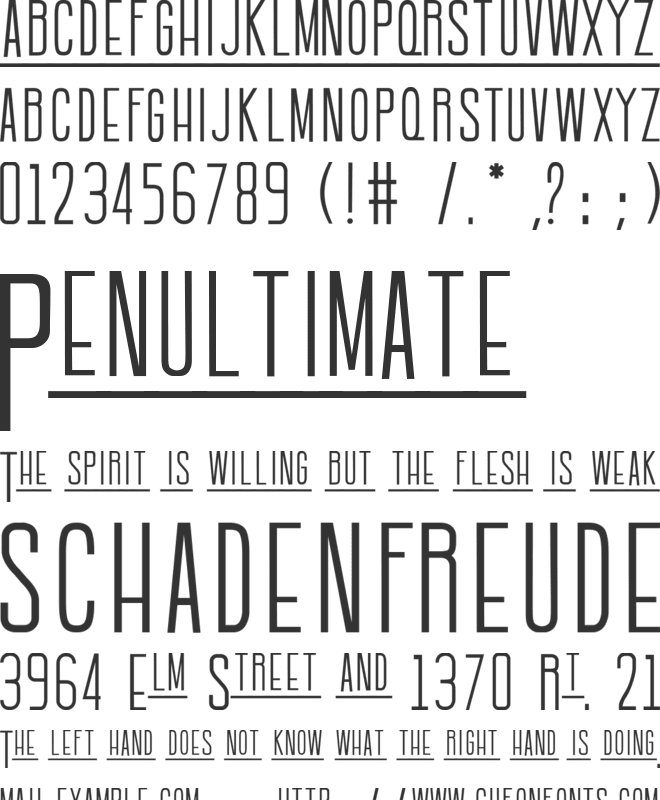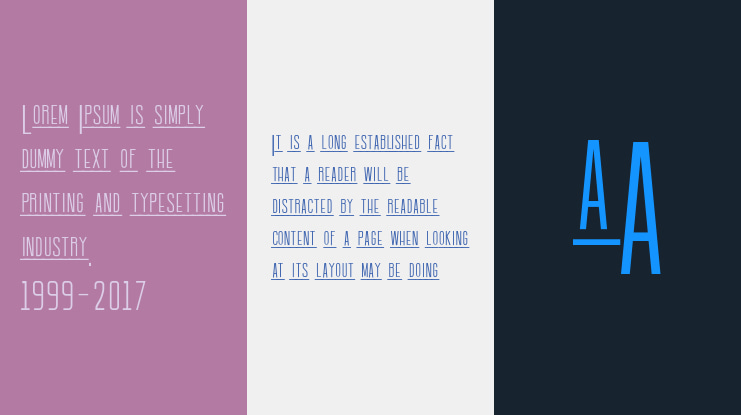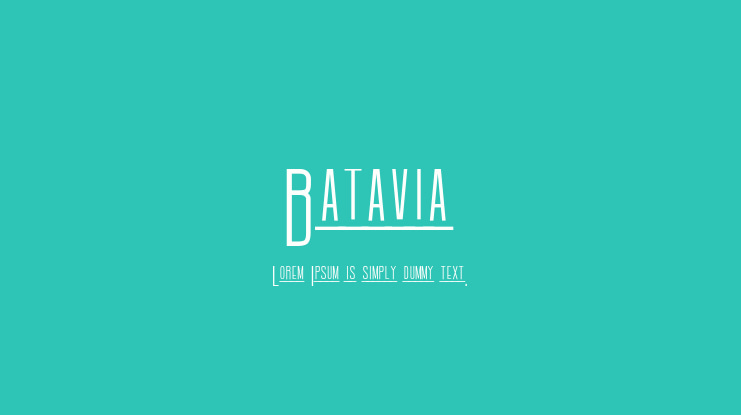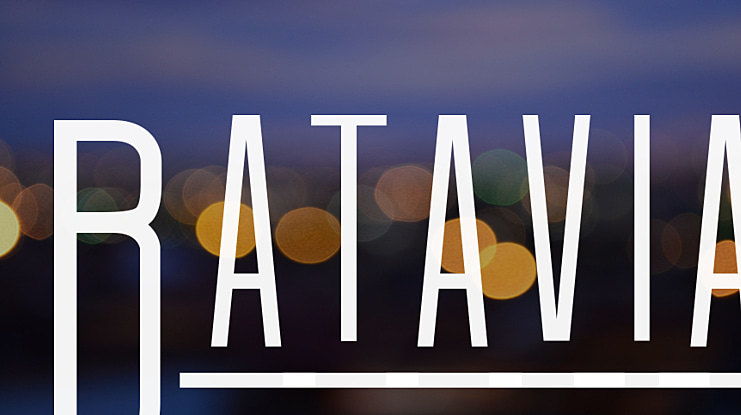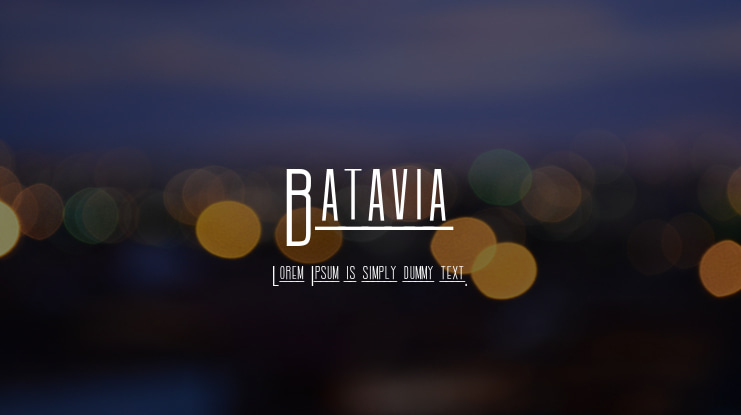
Batavia Font
This font is inspired from Central Ave typeface. I want to make it looks like more art deco style and similar with colonialism era in Indonesia around 1900-1950. I hope you like it, you can use it free for personal use and it would be nice if you want to share it with me your artwork. Enjoy!